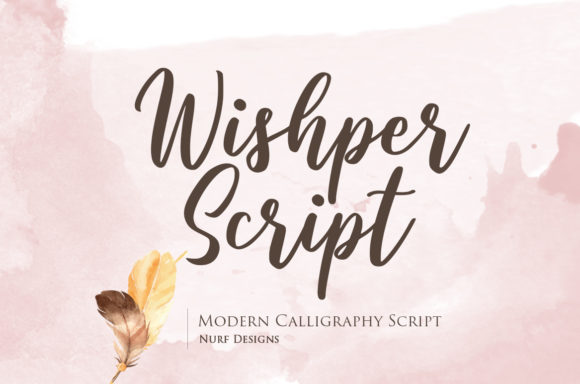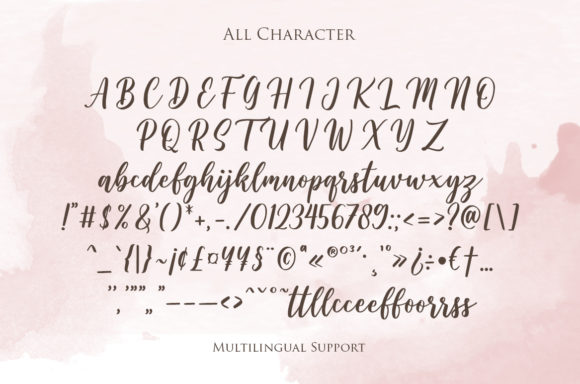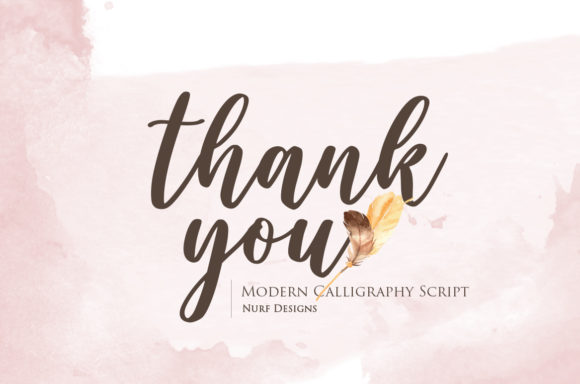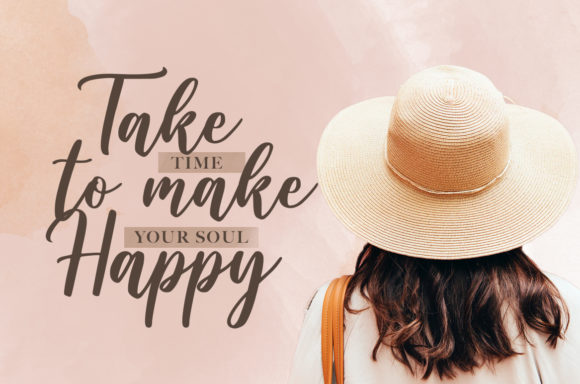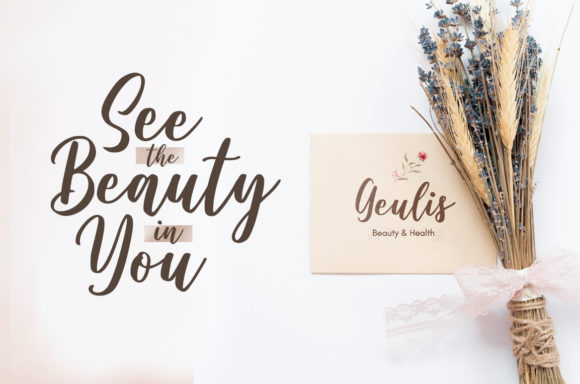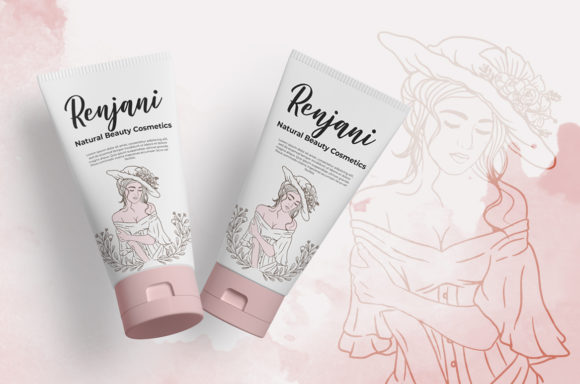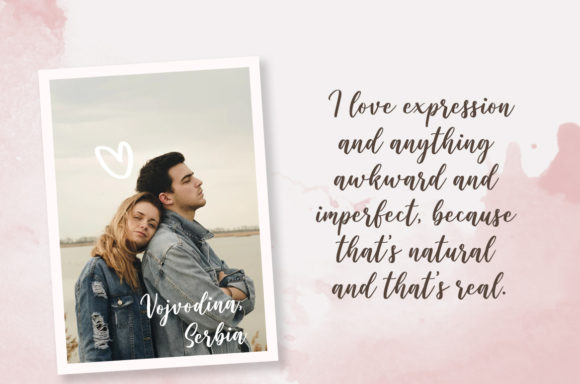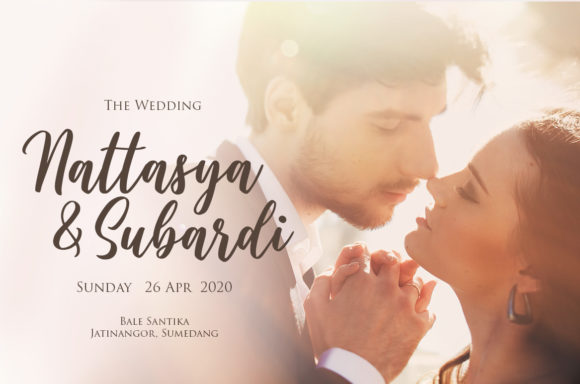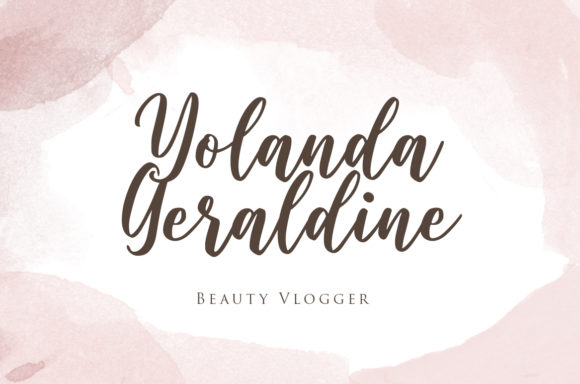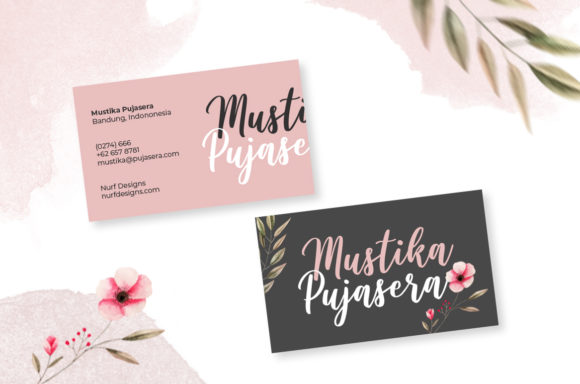
Wishper Script Font
About Wishper Script Font
Wishper Script is a cute and casual handwritten font with an incredibly friendly feel. It features gorgeous swashes and ligatures that make this script incredibly versatile. Whether you’re looking for fonts for Instagram or calligraphy scripts for DIY projects, Wishper Script will turn any creative idea into a true piece of art!